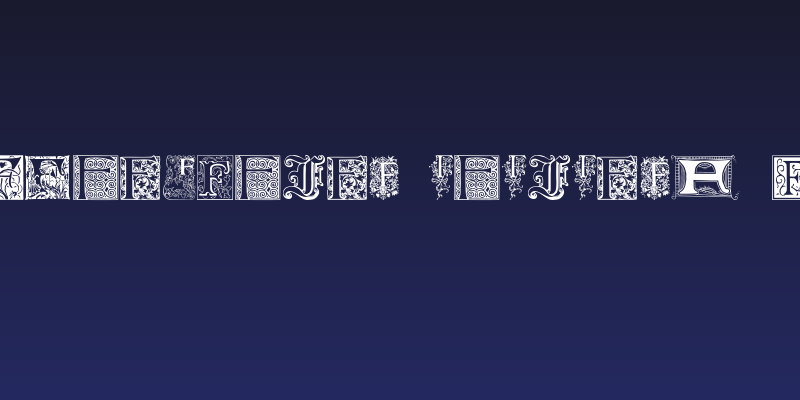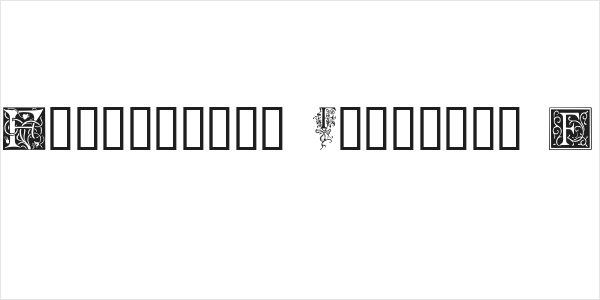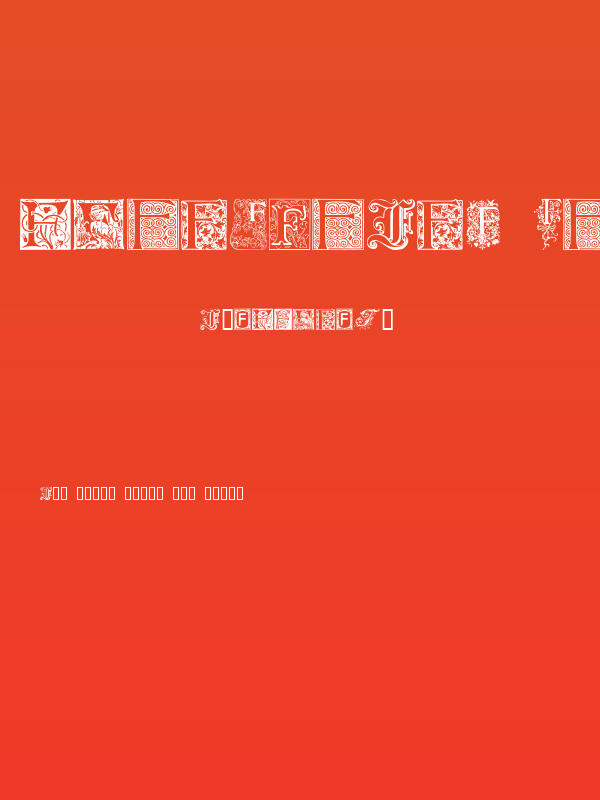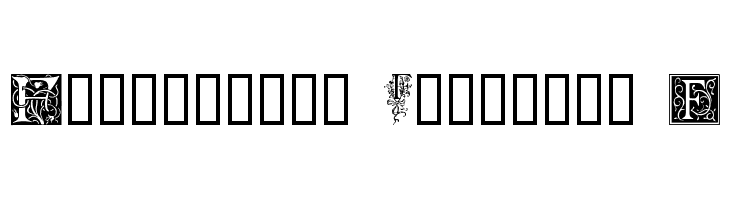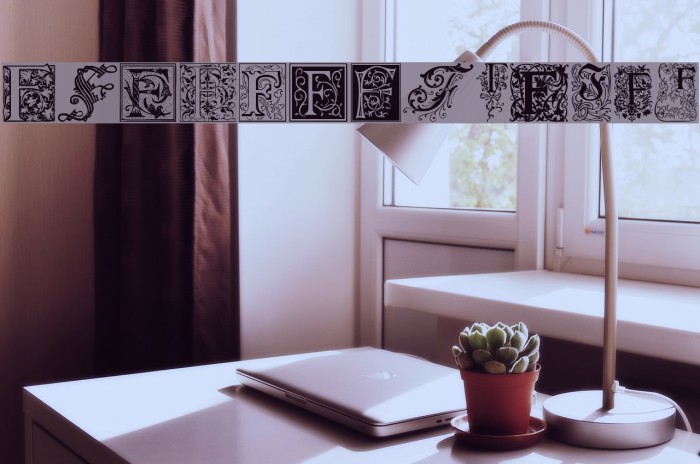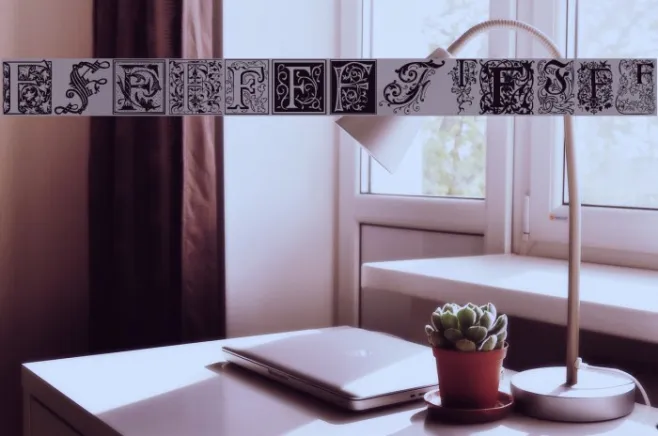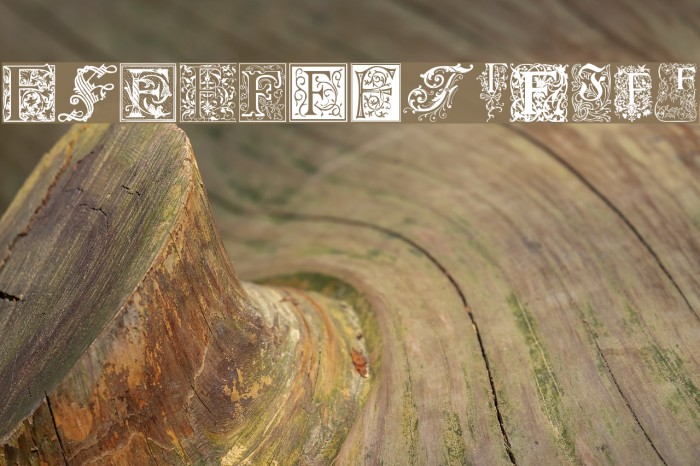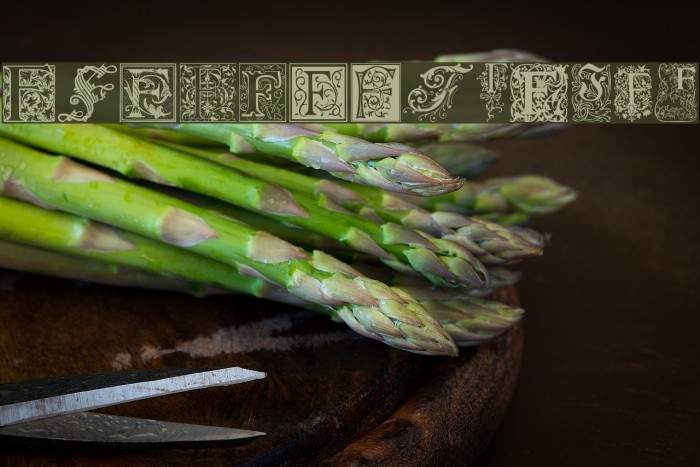
Ornamental Initials F Font
Ornamental Initials F Description
This font is a highly decorative and ornate typeface, featuring intricate designs and embellishments within each letter. The uppercase letters are enclosed in square frames, each filled with elaborate floral and geometric patterns, making them resemble illuminated manuscript initials. The style is reminiscent of medieval or renaissance art, with a strong emphasis on visual complexity and artistic flair. Each character is unique, showcasing a blend of historical and artistic elements that make it suitable for decorative purposes. The font does not include lowercase letters or numbers, focusing solely on the embellished uppercase alphabet.
| Overall Style | Vintage |
| Use Case | Logos, Headlines, Decorative elements |
| Proposed Projects | Ideal for use in invitations, certificates, book covers, or any project requiring a historical or artistic touch. |